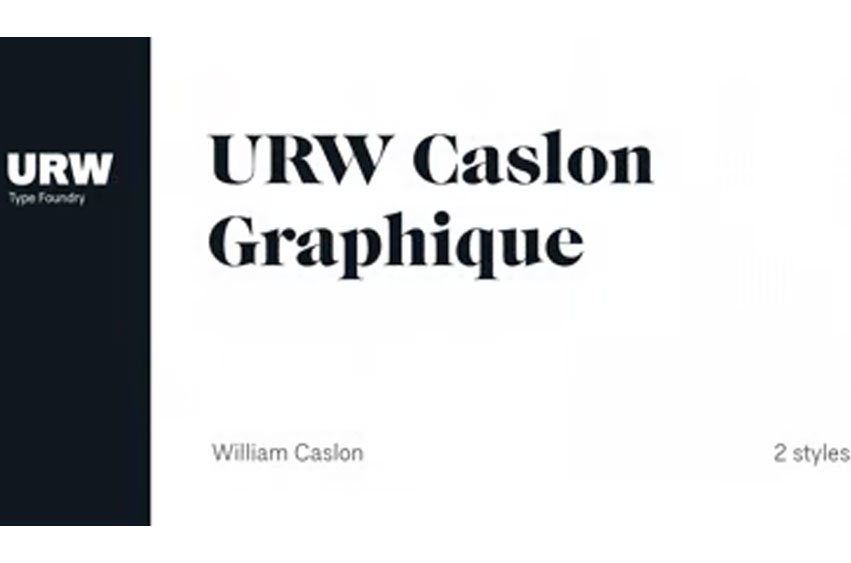
URW Caslon Graphique Font is suitable for flyers, posters, novels, letterheads, or any design requirements you want to be awesome.
It will certainly amaze your readers.